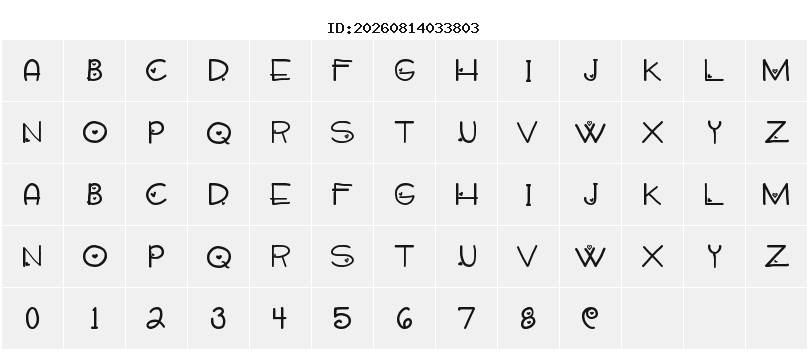
• Font Name: Sweetie Hand
About Sweetie Hand.ttf
Sweetie Hand.ttf is a modern, elegant sans-serif font designed for ultimate readability and visual harmony. Perfect for branding, headlines, web design, and print materials.